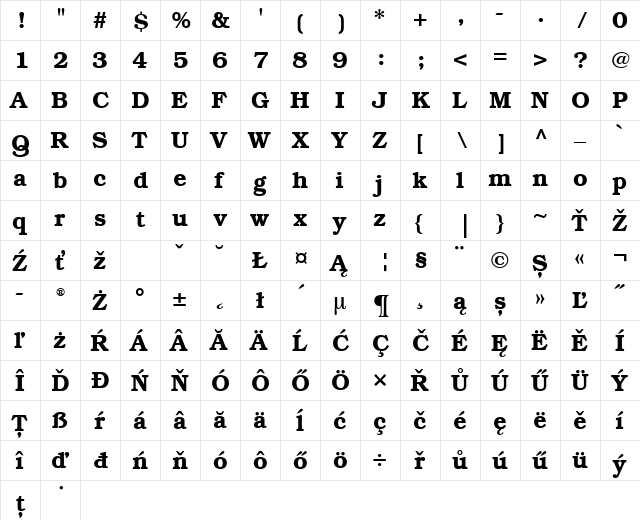
Bookman CE Demi Font Preview
Bookman CE Demi
Design Context for Bookman CE Typeface
Bookman CE offers clean, dependable letterforms without strong stylistic allegiance, making it a practical choice for designers who need flexibility.